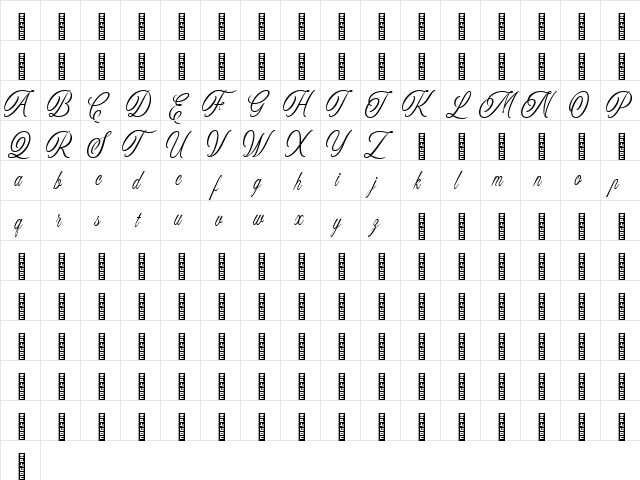
Sholaria Regular
| Foundry | Subqi Std |
| Designer | Amir Subqi Setiaji |
Design Context for Sholaria Typeface
Sholaria takes a measured approach to typography — its balanced proportions and neutral character make it a reliable workhorse for both digital and print work.